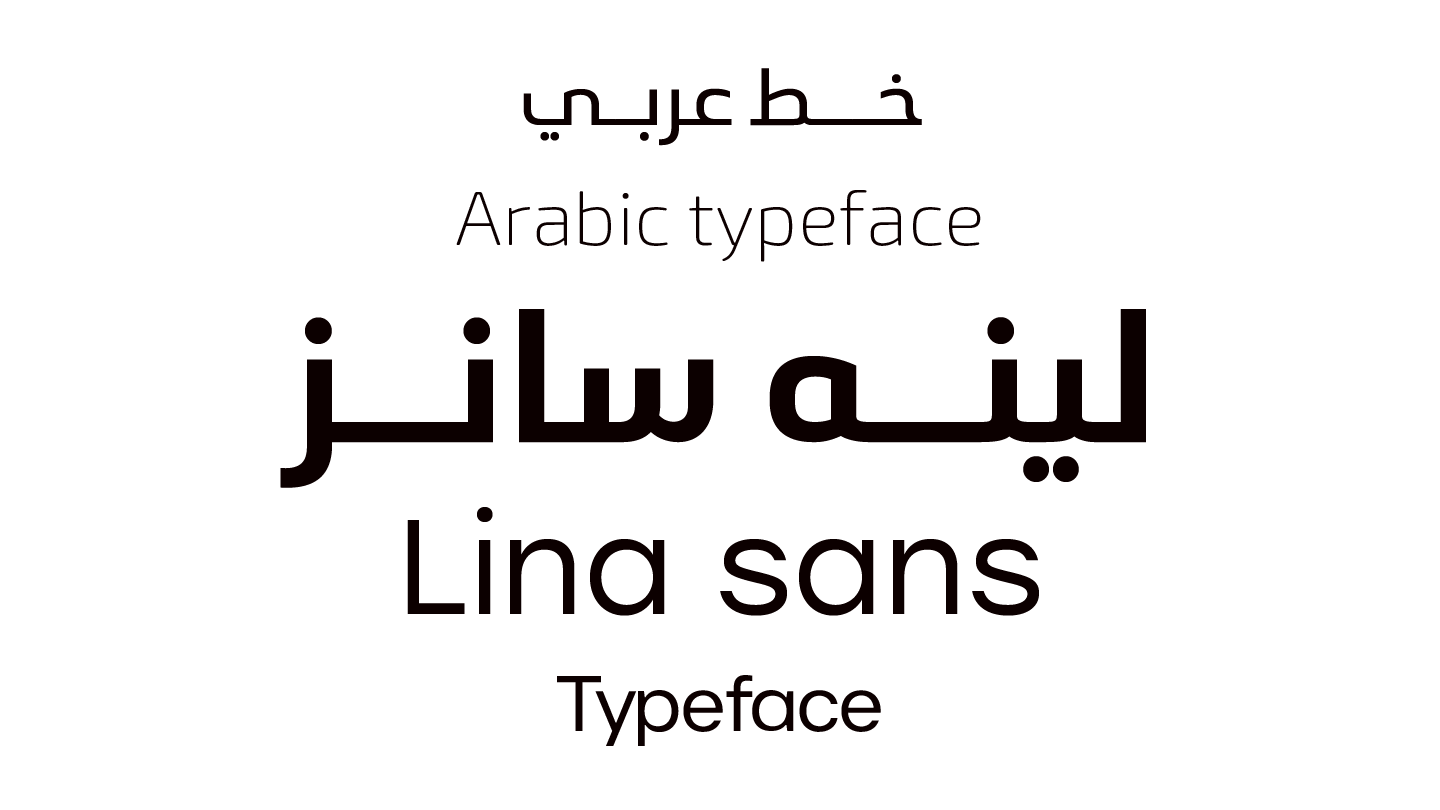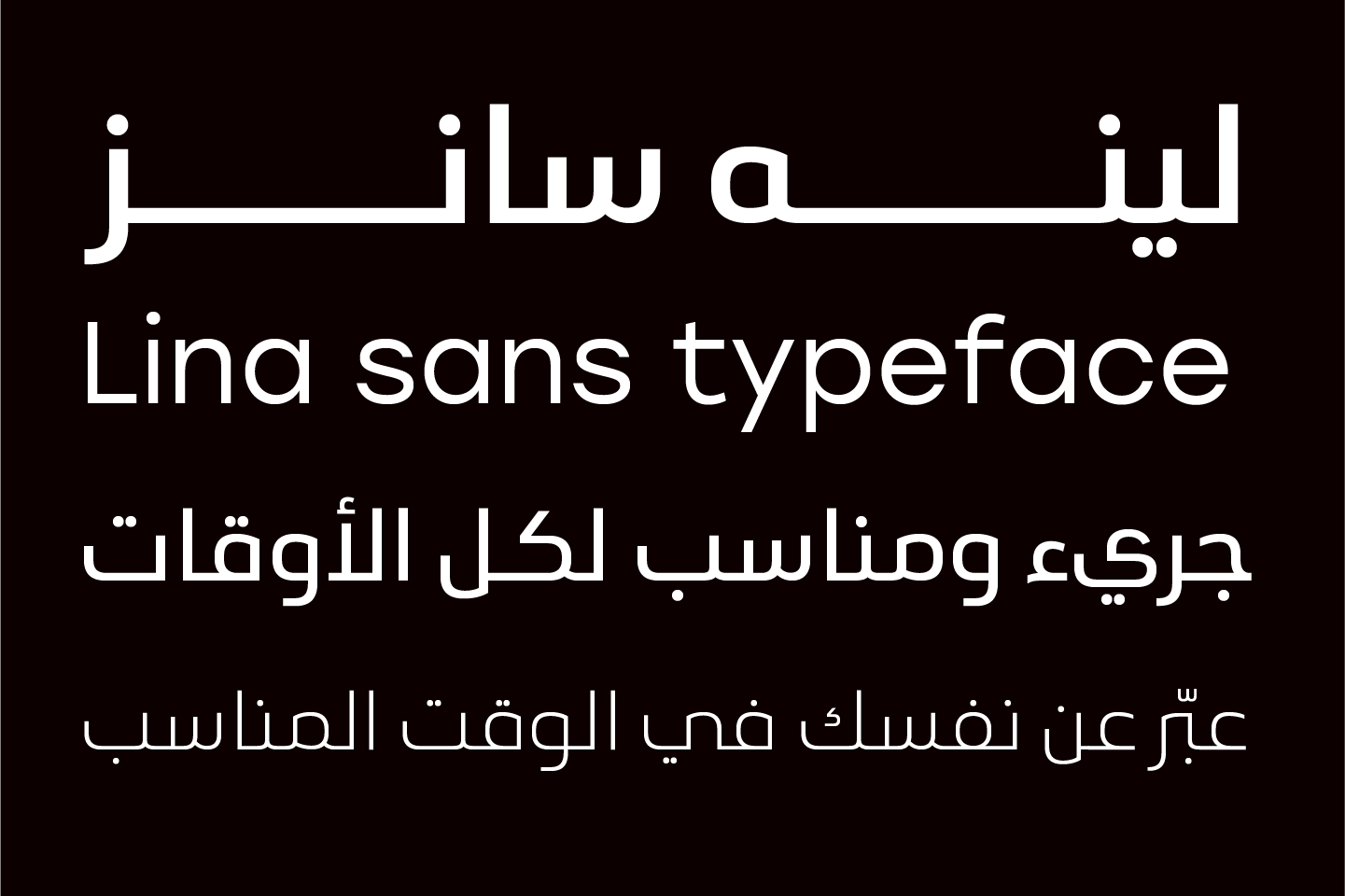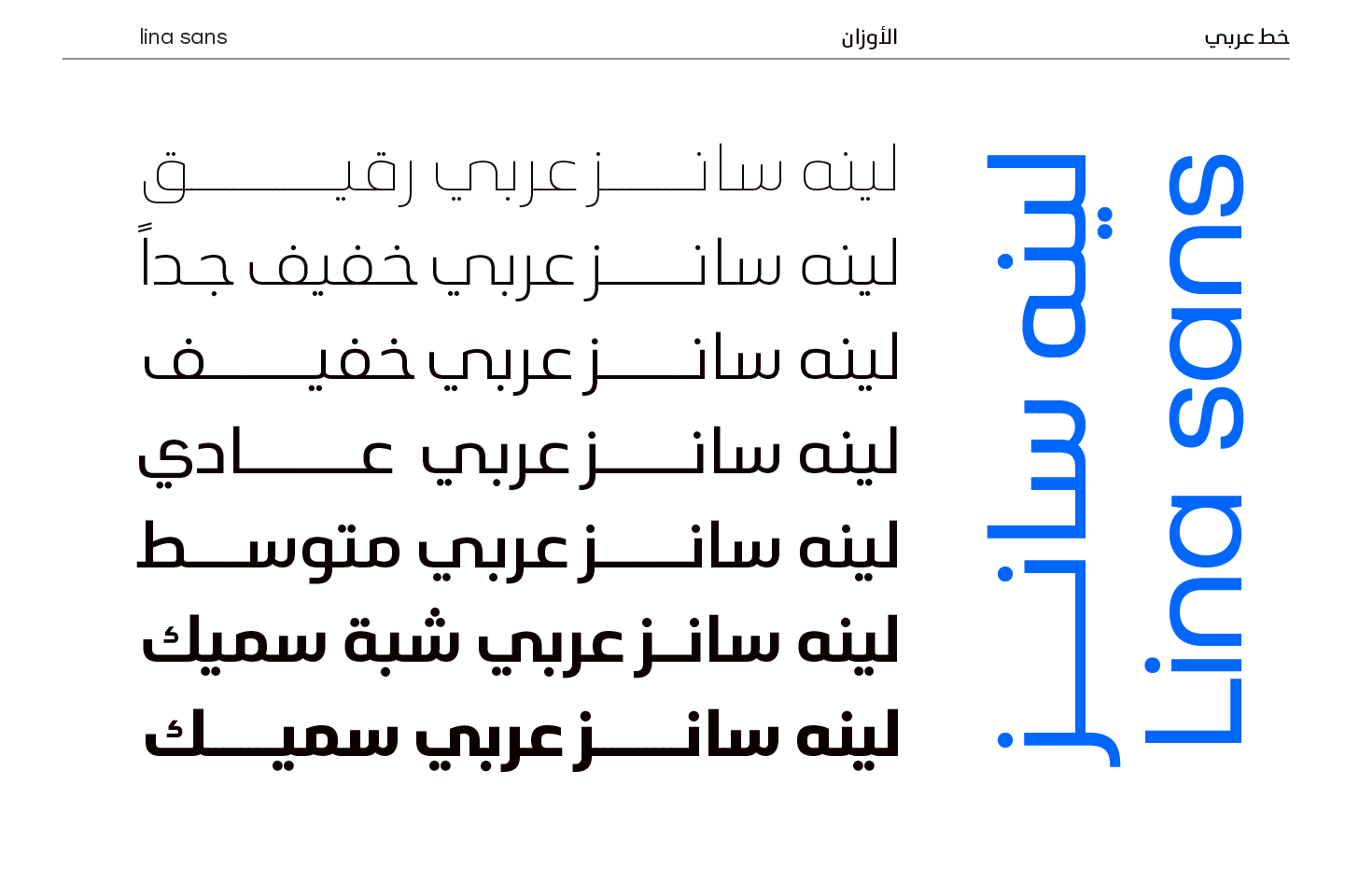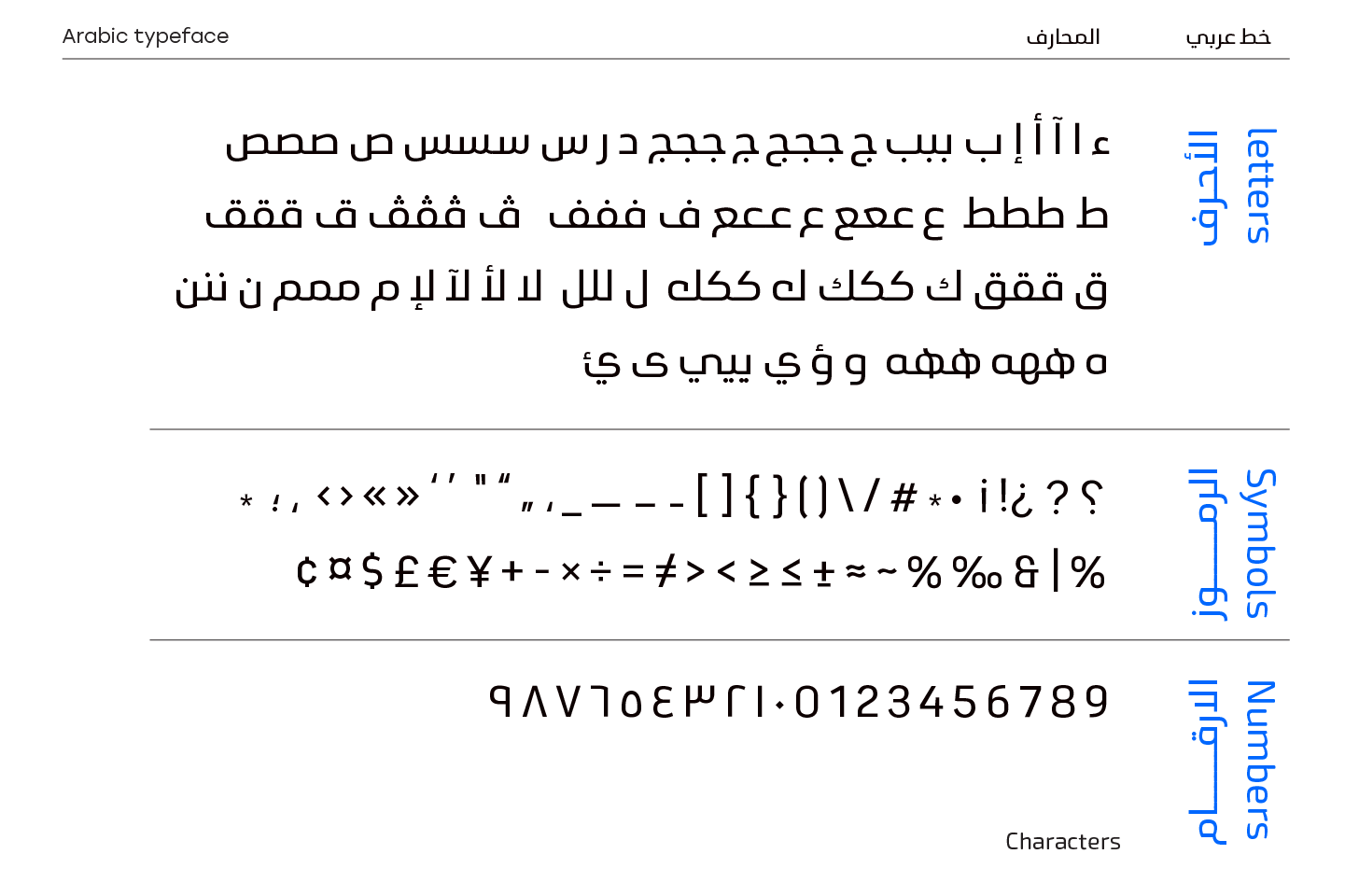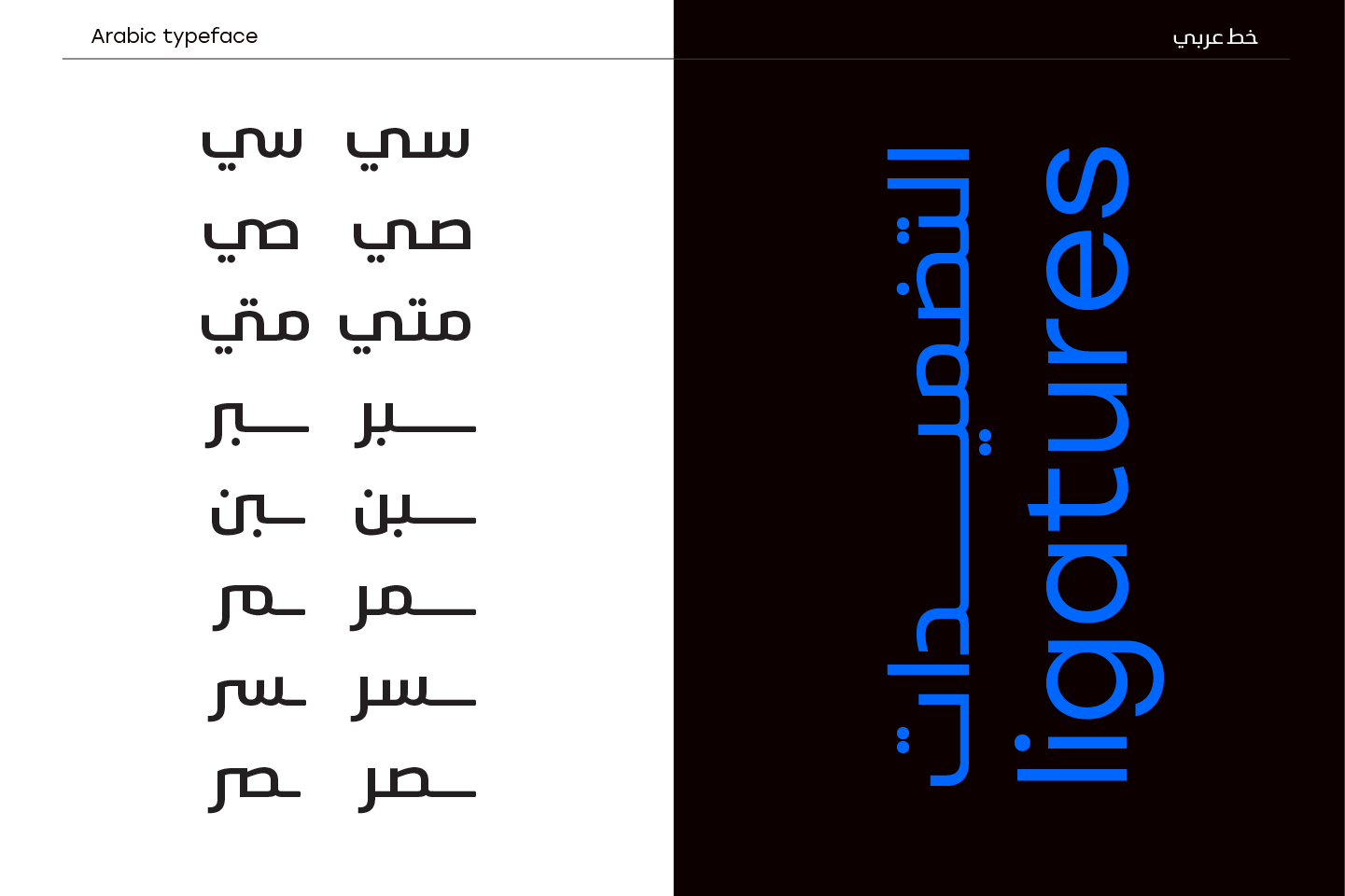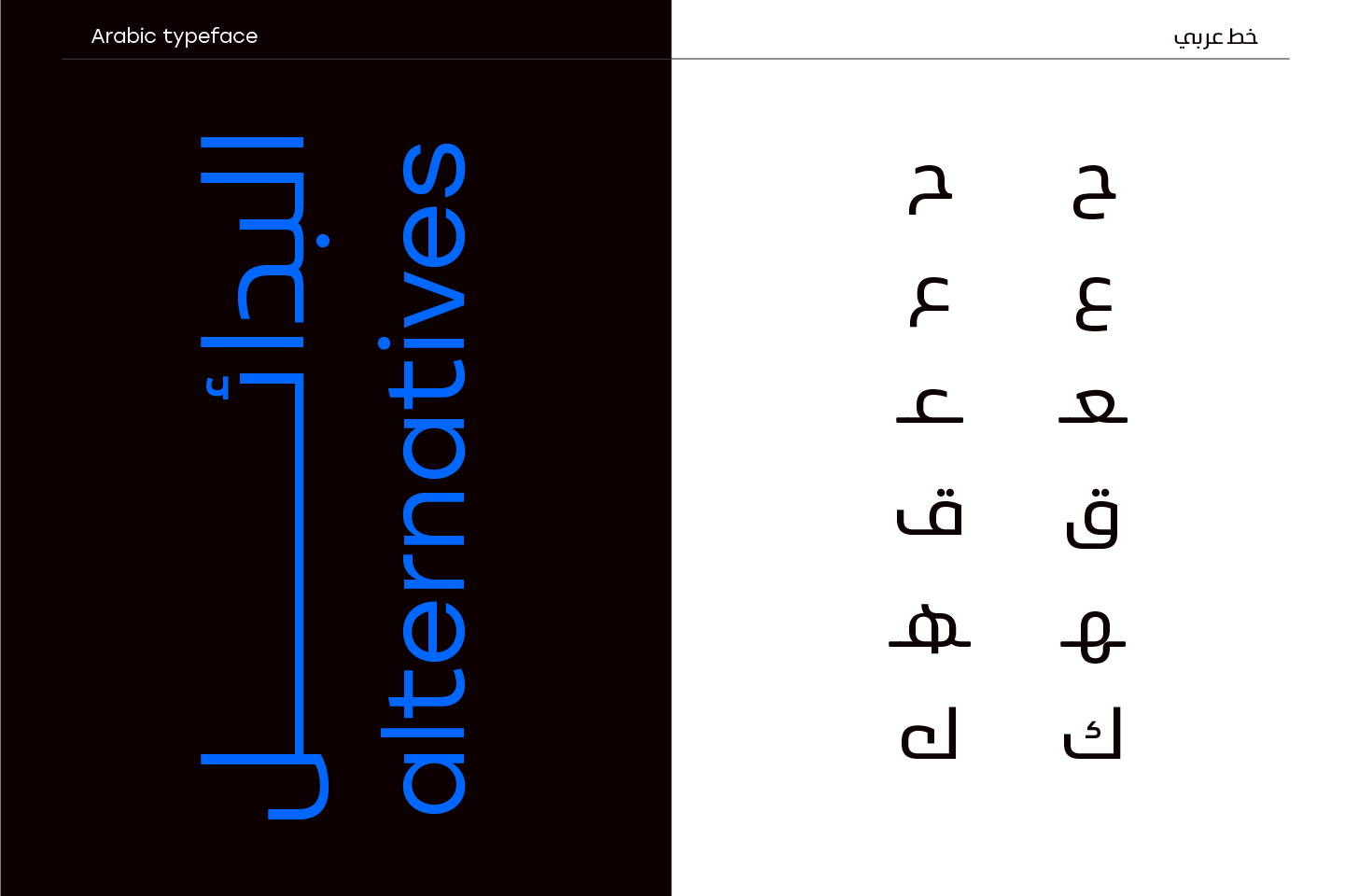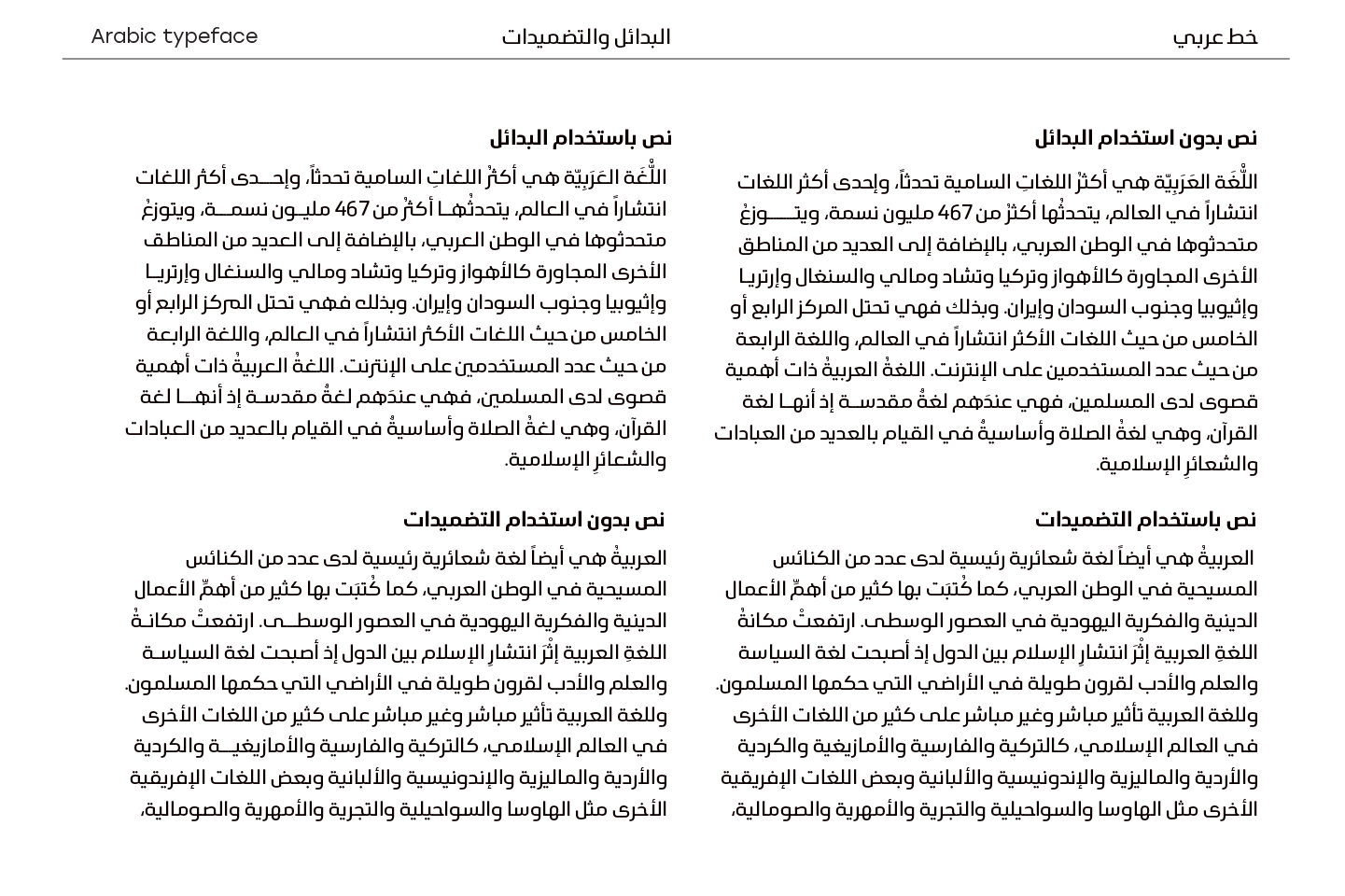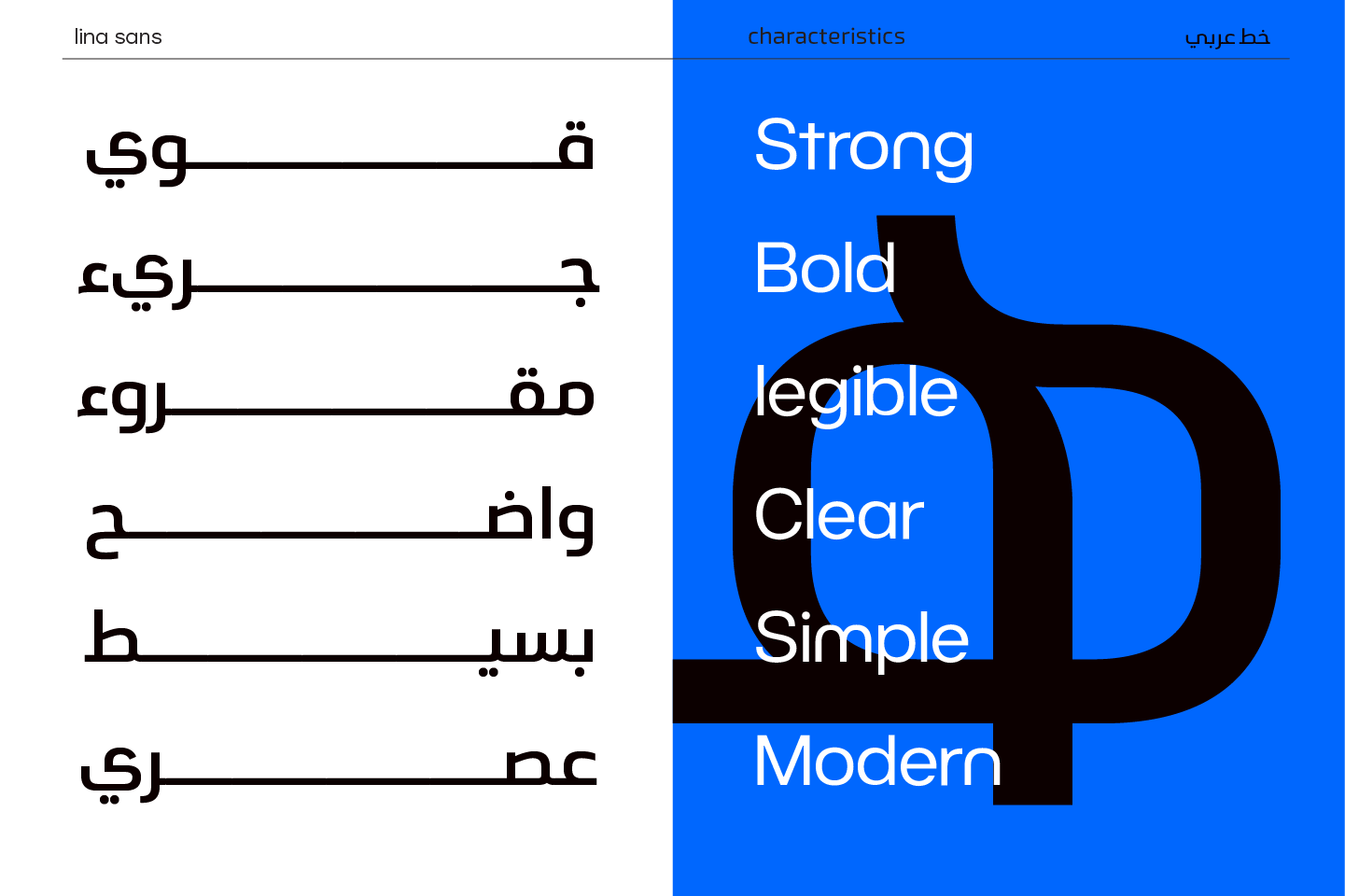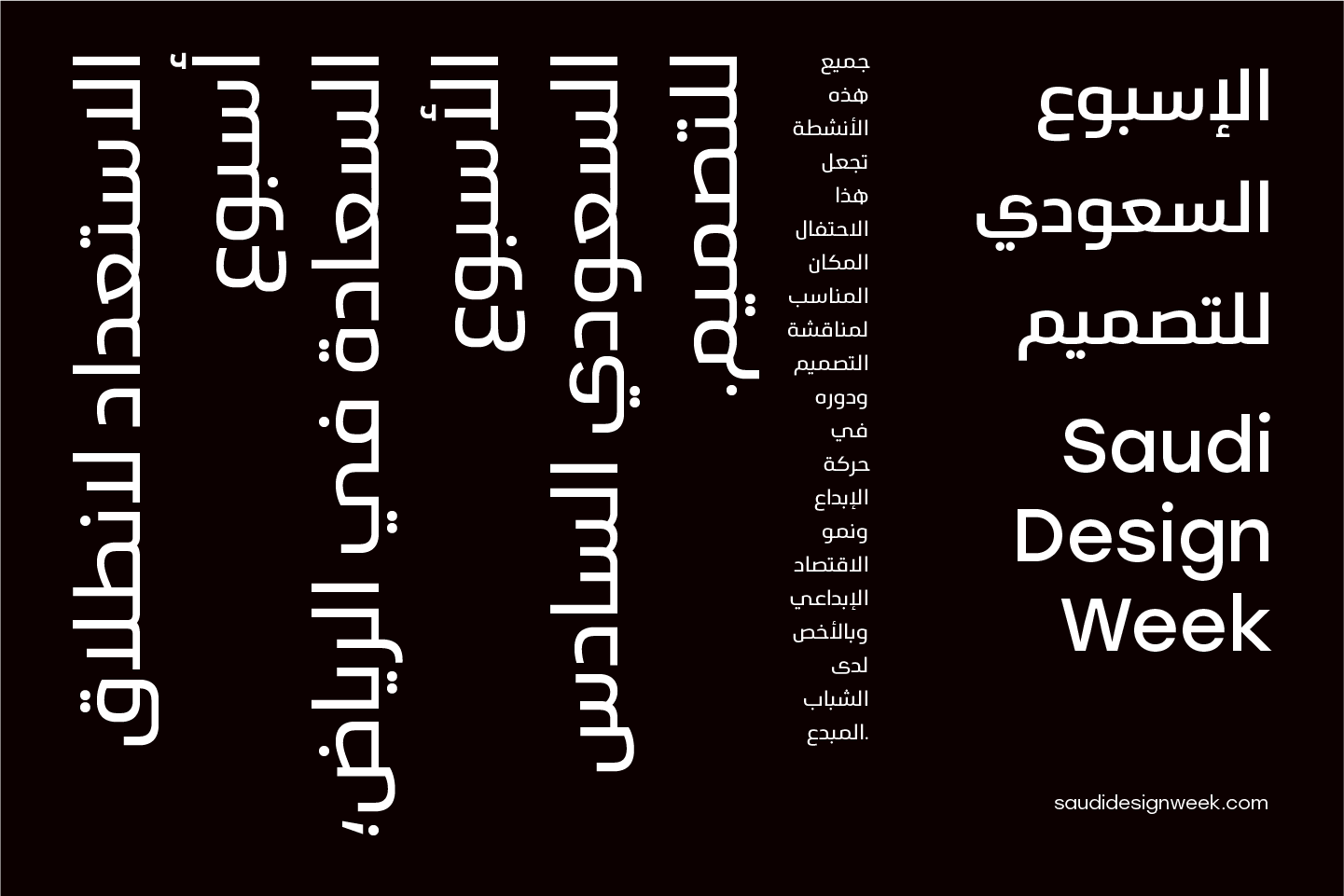
Lina sans typeface – خط لينه سانز
Lina sans is an Arabic typeface from Lina type family, that expresses modern vigor based on simplicity and clarity.
It’s Strong, Bold, legible, clear, simple, Modern. With a handful set of OpenType features and alternatives. Lina type family consists of Lina soft, Lina sans, Lina round.
the design is inspired by the Kufic calligraphic style and influenced by the Naskh style.
Lina sans was highly crafted in order to perform well both on screen and in print. The large x-height and open counters make it function well even on small font sizes.
It has a wide range of use possibilities headlines, logotypes, branding, books, magazines, motion graphics, and use on the web and Tv.
Lina sans consists of 7-weight versions from thin to bold.
اللغات: العربية
الاوزان : 7 اوزان